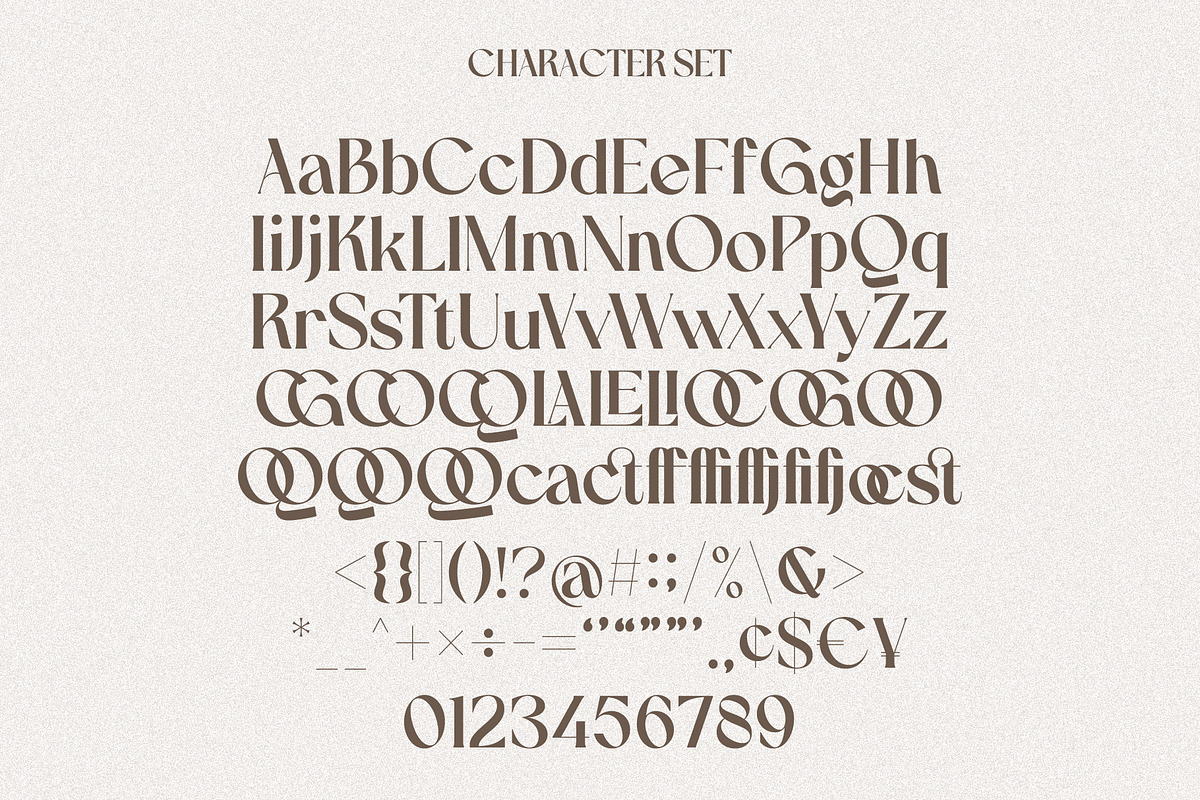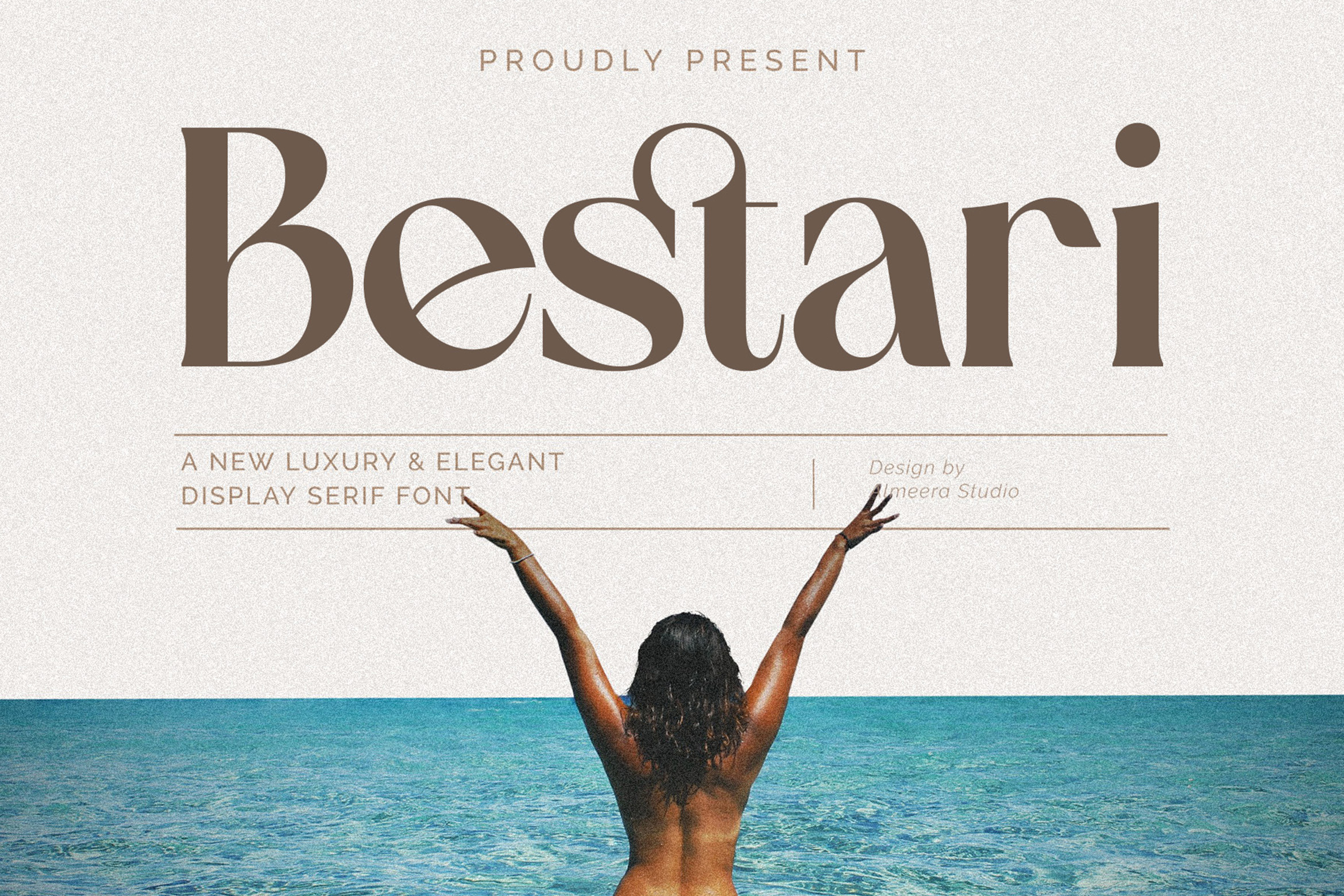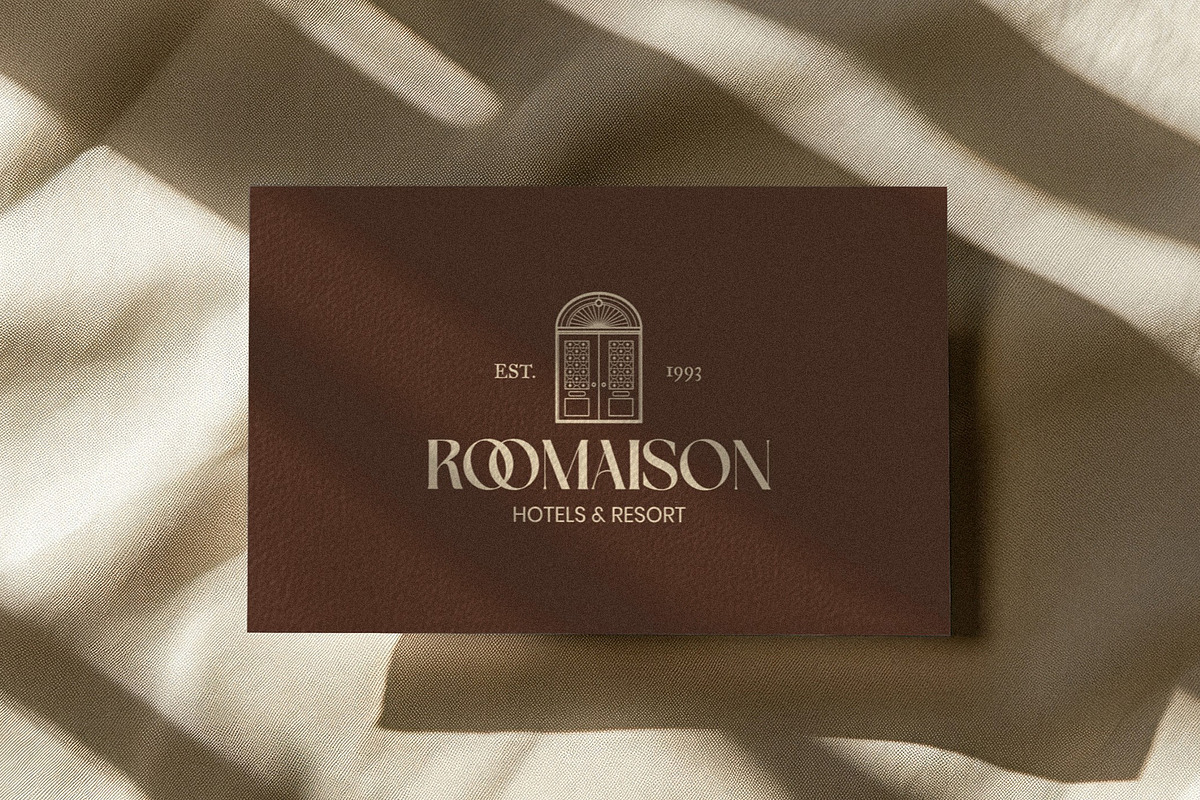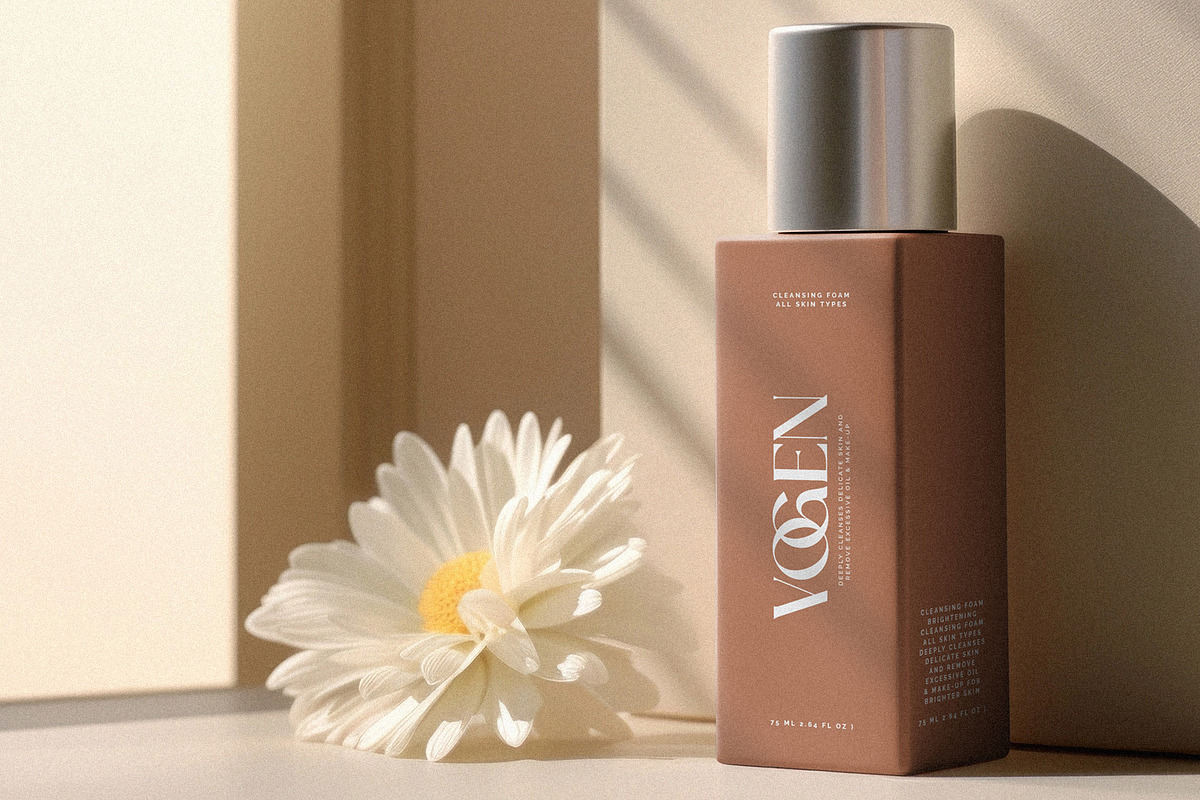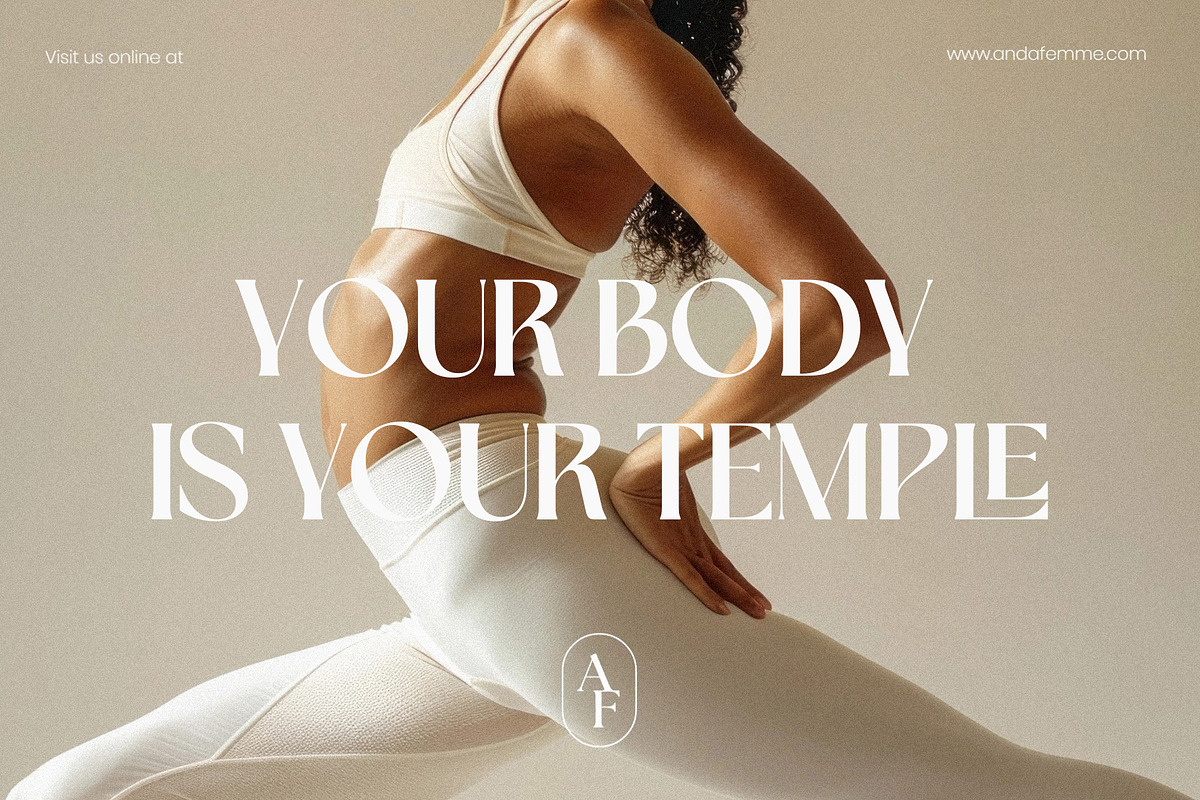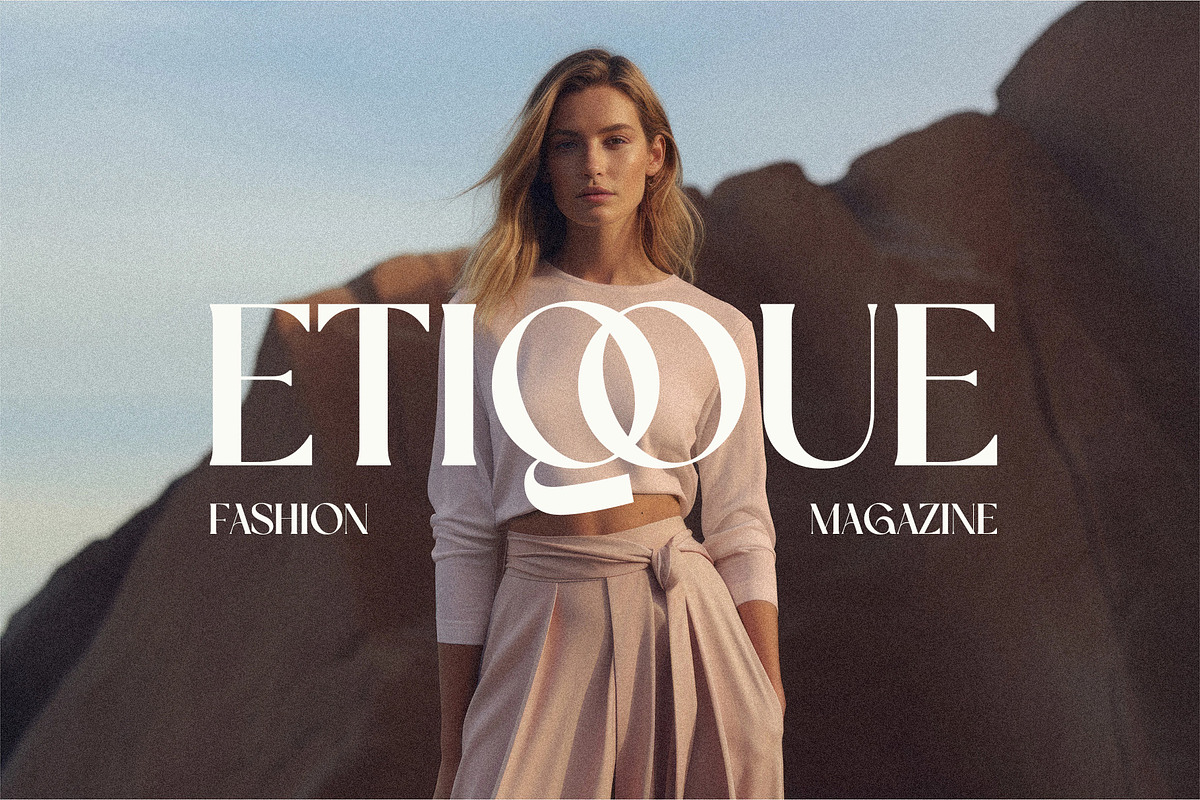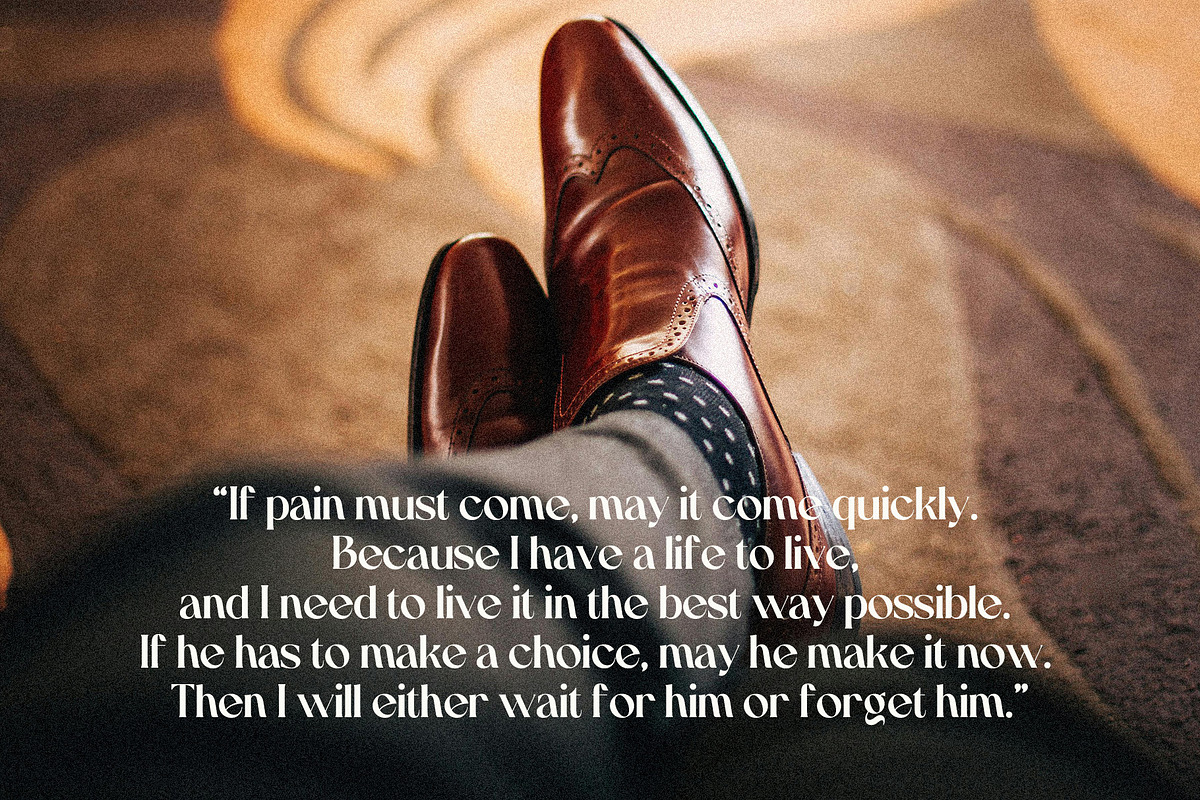
Bestari - Display serif font
Introducing Bestari - Display serif font. Bestari is a display, minimalis & elegant serif font, This type of font is very suitable for your various needs such as branding projects, logos, social media posts, advertisements, labels, product packaging, photography, wedding designs, watermarks, invitation product designs, stationery, and any project.